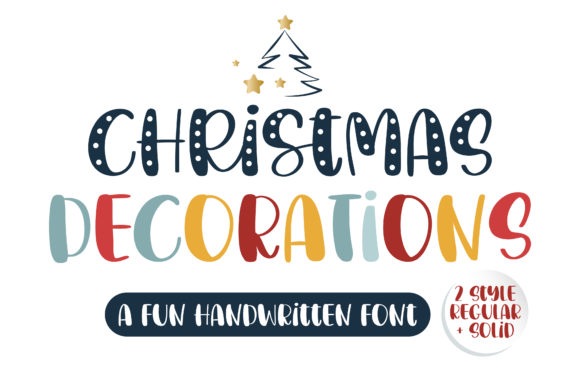
Introducing Christmas Decorations Font, a captivating and charming addition to your font collection. This adorable handwritten font, created by BitongType, is not your average script font. It possesses a natural and unique style that will instantly make your designs come to life.
With Christmas Decorations Font, the possibilities are endless. Let your imagination run wild as you explore the numerous ways this font can elevate your projects. Whether you're designing greeting cards, invitations, or even creating personalized credit card numbers, this font is the perfect choice.
One of the key highlights of Christmas Decorations Font is its versatility. It seamlessly blends with any design, adding a touch of elegance and sophistication. Its flowing strokes and intricate details make it a standout choice for creating eye-catching headlines, logos, and branding materials.
The beauty of Christmas Decorations Font lies in its ability to evoke emotions. Its playful and joyful aura instantly brings a sense of warmth and coziness to your projects. Imagine the smiles it will bring to your loved ones when they receive a heartfelt card or an invitation designed with this font.
Not only does Christmas Decorations Font capture the essence of the holiday season, but it also adds a touch of magic to any occasion. Whether you're designing for Christmas, birthdays, weddings, or any other special event, this font will captivate and engage your audience.
In conclusion, Christmas Decorations Font is more than just a font. It's a gateway to creating unforgettable designs that leave a lasting impression. Its natural and unique style, versatility, and ability to evoke emotions make it a must-have for any designer. Take your projects to new heights and spread joy with Christmas Decorations Font.